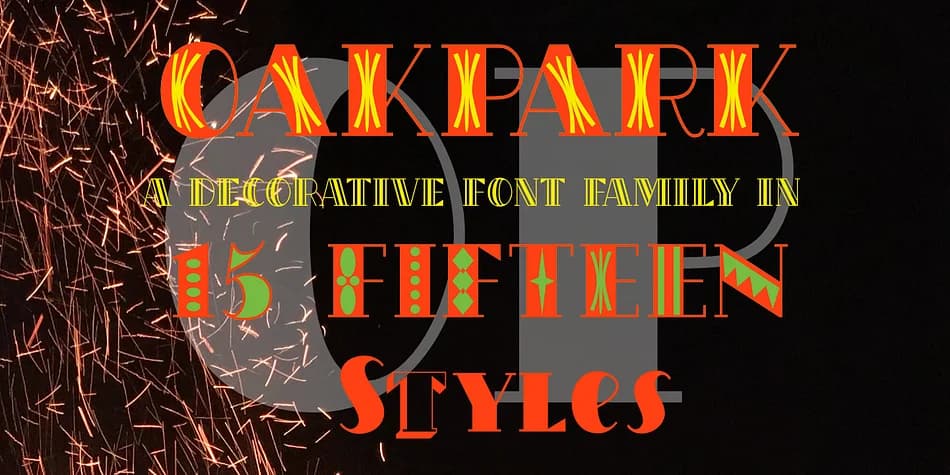
OakPark hits with that glamorous, high-contrast punch of 1920s Art-Deco design. Ingrimayne Type built this decorative family on thick, bold stems practically designed for rich embellishment and layered color applications.
The real magic lives in the stacking and layering system. Eight styles come packed with interior decorative fills, so you can layer them over the regular weight and underneath the hollow versions to build richly colored, dimensional text displays and effects. The shadowed style pairs beautifully with its shadowinside companion for creating sophisticated depth and dimension on the page. Beyond the all-caps core, you get a proper lowercase version with matching italics (genuinely useful for mixed-case text and longer passages), plus a small caps variant for added refinement. About half the lowercase letters behave differently from their uppercase counterparts, which gives each weight its own distinct personality and visual character.
This typeface excels on vintage wedding invitation suites, Art-Deco cinema posters, retro cocktail bar signage, and high-end jewelry branding campaigns. The fill-and-shadow system delivers real visual impact and depth without becoming cluttered or difficult to read. Pair OakPark with a clean, minimal geometric sans-serif for body text, letting the decorative layer command full attention. You'll find it on Creative Fabrica.
OakPark Font is a decorative font that shines as a display or heading face. Pair it with a clean sans-serif or serif font for body text β the contrast creates a clear hierarchy while the two styles stay balanced and easy to read.